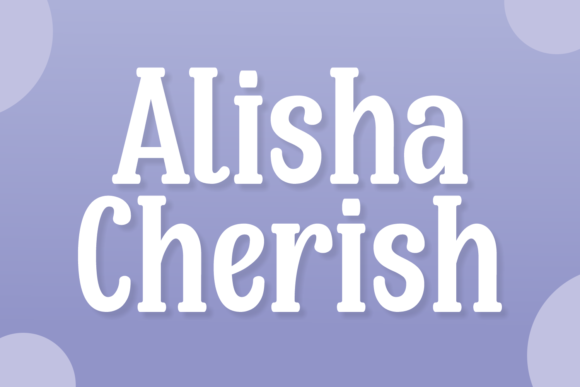
The Alisha Cherish Font: A Friendly Serif for Your Design Library
I’ll never forget the time I was working on a craft project, pouring my heart and soul into a custom sign for a friend’s birthday. I had the design all planned out, but as I was about to cut the vinyl, I realized I was stuck with a font that just wasn’t doing it justice. The letters looked stiff, and the overall vibe was off. That’s when I stumbled upon the Alisha Cherish font, and let me tell you, it was love at first sight! 💕
With its friendly serif and bold display characters, Alisha Cherish instantly elevated my design and turned it into a stunning piece of art. I knew right then and there that I had to share this gem with fellow designers and crafters. In this article, I’ll give you the lowdown on what makes Alisha Cherish special, its features, and how to make the most of it in your designs.
An Honest Review of Alisha Cherish
• ✨ Friendly serif design that’s perfect for craft, print, or digital projects
• ✅ Bold display characters that make a statement
While Alisha Cherish is an amazing font, there are a few things to keep in mind:
• ⚠️ Some users might find the font a bit too bold for certain projects, so it’s essential to experiment with different sizes and styles
• 🤔 Limited availability of certain OpenType features, but we’ll dive into that later
The Story Behind Alisha Cherish
While the true story behind Alisha Cherish might be a mystery, it’s easy to imagine that the designer was inspired by the world of craft and design. Perhaps they wanted to create a font that would make designers feel happy and creative, with a friendly serif that would bring a smile to their faces. Whatever the inspiration, Alisha Cherish is undoubtedly a gem that deserves a spot in your design library.
Q: What type of projects is Alisha Cherish best suited for?
A: Alisha Cherish is versatile and can be used for various projects, including craft, print, and digital designs. It’s perfect for custom signs, social media graphics, and more.
Q: Does Alisha Cherish support OpenType features?
A: Yes, Alisha Cherish supports OpenType features, including stylistic alternates and glyphs. You can access these features in compatible design software like Adobe Photoshop and Illustrator.